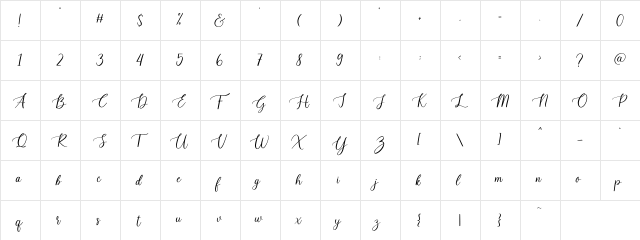
Scary_Ghost_Script Regular
Design Context for Scary_Ghost_Script Typeface
Scary_Ghost_Script leans into the macabre with letterforms designed to disturb and intrigue in equal measure.
Perfect for anything that needs to unsettle — game titles, horror branding, and macabre invitations.
Font Pairing: Pair with a clean neutral sans-serif for body copy to let Scary_Ghost_Script's character lead without overwhelming the composition.
Pro Tip: Use Scary_Ghost_Script at larger display sizes for maximum impact. Consider generous tracking to let the disturbing character of each letterform breathe.